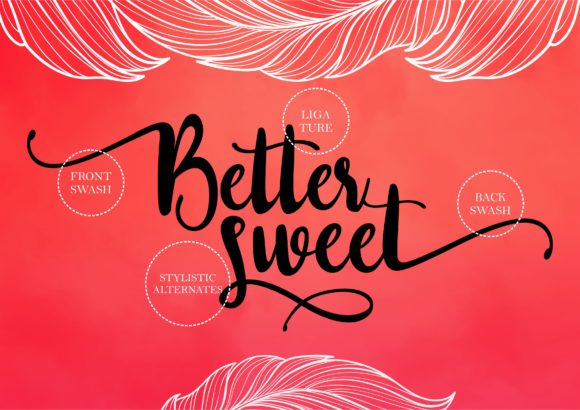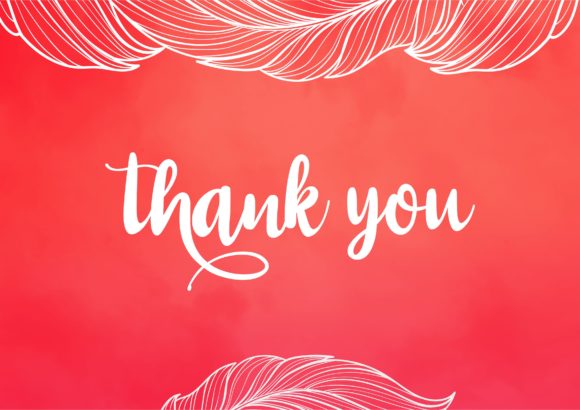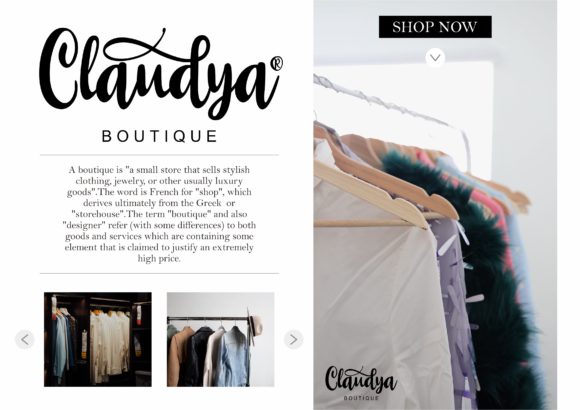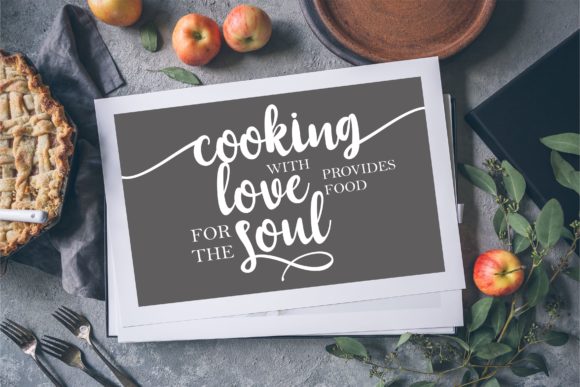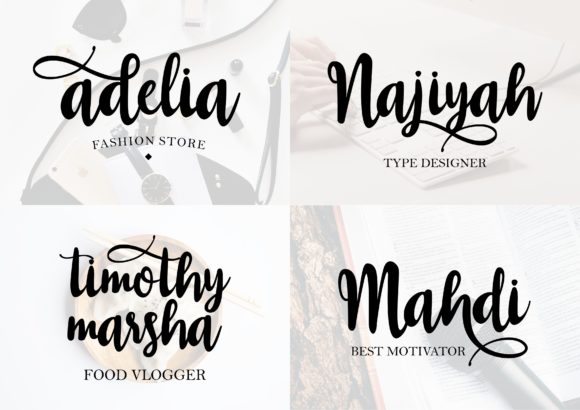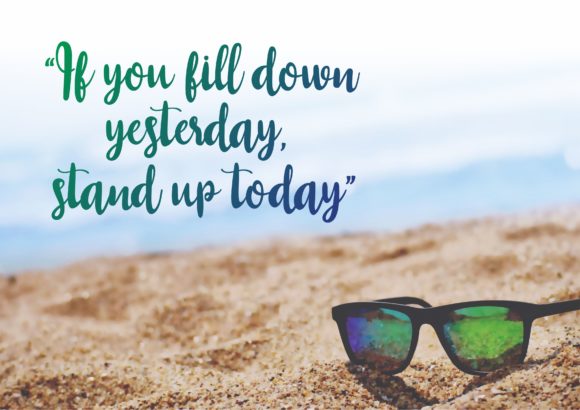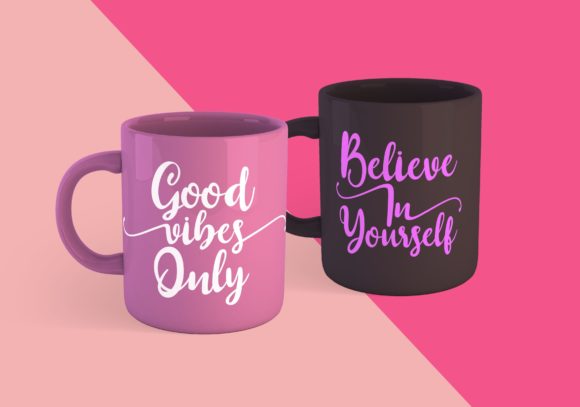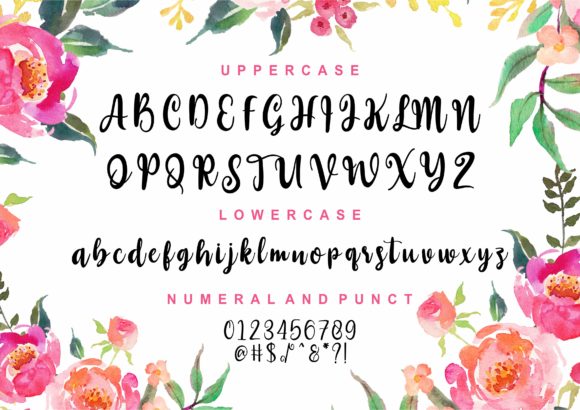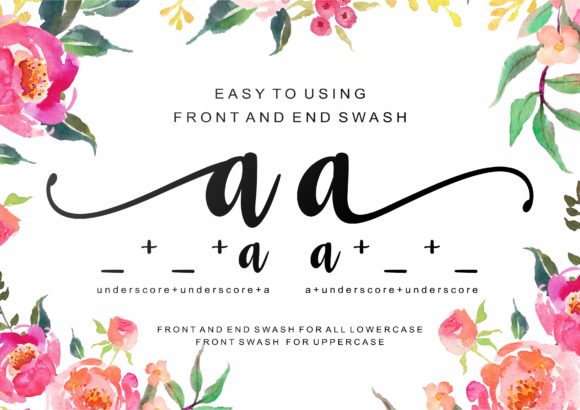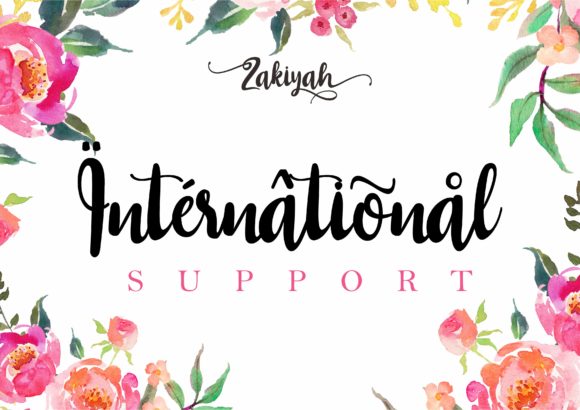
HomeScript FontsZakiyah Font Script Fonts Zakiyah Font FacebookXPinterestWhatsApp Zakiyah Font Poster 2 Zakiyah Font Poster 3 Zakiyah Font Poster 4 Zakiyah Font Poster 5 Zakiyah Font Poster 6 Zakiyah Font Poster 7 Zakiyah Font Poster 8 Zakiyah Font Poster 9 Zakiyah Font Poster 10 Zakiyah Font Poster 11 About Zakiyah Font Zakiyah is an incredibly lovely handwritten font with a bold twist. Get inspired by its unique feel! DOWNLOAD ON CREATIVE FABRICAThis font is sold and delivered by Creative Fabrica. Font Canyon may earn a commission if you buy through this link. People also explored Stambaugh Font Still Sunshine Font October Special Font Alpen Snow Font Tamword Font Sure Americana Font Madeline Font Qolam Regular Font Tomket Boys Font 334 0 TagsZakiyah Font Previous articleBBC Playland FontNext articleSummer Dream Font LEAVE A REPLY Cancel reply Comment: Please enter your comment! Name:* Please enter your name here Email:* You have entered an incorrect email address! Please enter your email address here Website: Save my name, email, and website in this browser for the next time I comment. Personal Use Free Little Pixel Personal Use Free Read more about this font Baveuse Personal Use Free Read more about this font Glosery Personal Use Free Read more about this font Puisi Adinda Personal Use Free Read more about this font BLOG The 10 Best Handwriting Fonts to Add Personality to Your Designs 10 of the Best Handwriting Fonts for Adding Personality to Your Designs There will undoubtedly be no other better choice than handwriting fonts to give... Exploring Font Trends Fonts That Capture the Spirit of New York City Elegant Wedding Invitation Fonts – Handwritten & Script Fonts